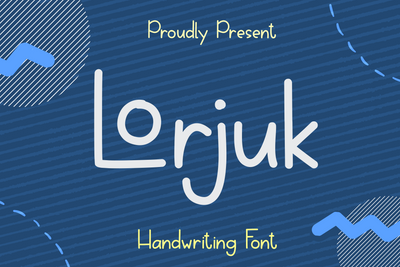
Lorjuk Font
Lorjuk is a cute and friendly handwritten font. Featuring a curvy, readable and down to earth style, this font will make each of your designs look gorgeous.